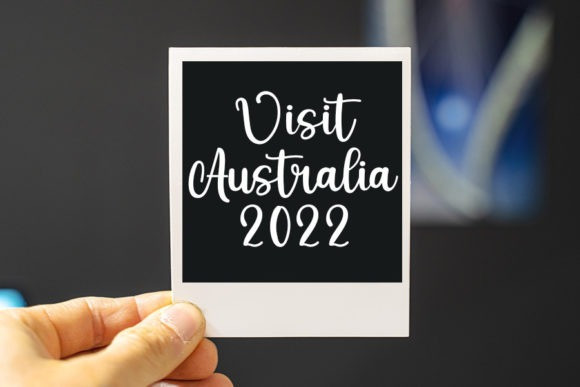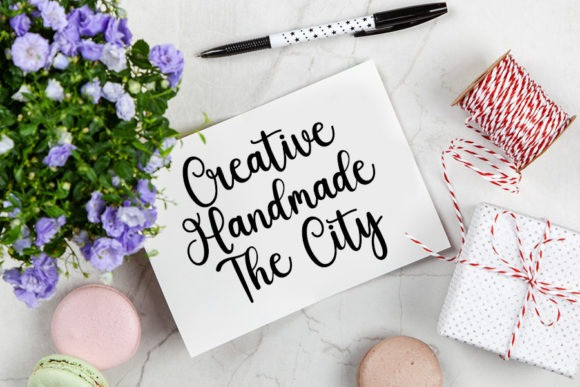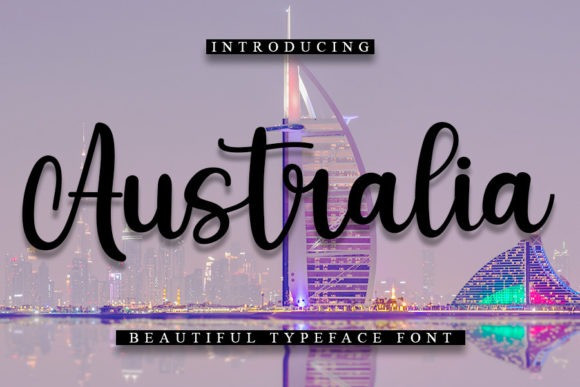
Australia Font
Australia Script Font is a charming and amazing script font. It has beautiful and well designed characters and as a result, it matches a wide pool of designs.